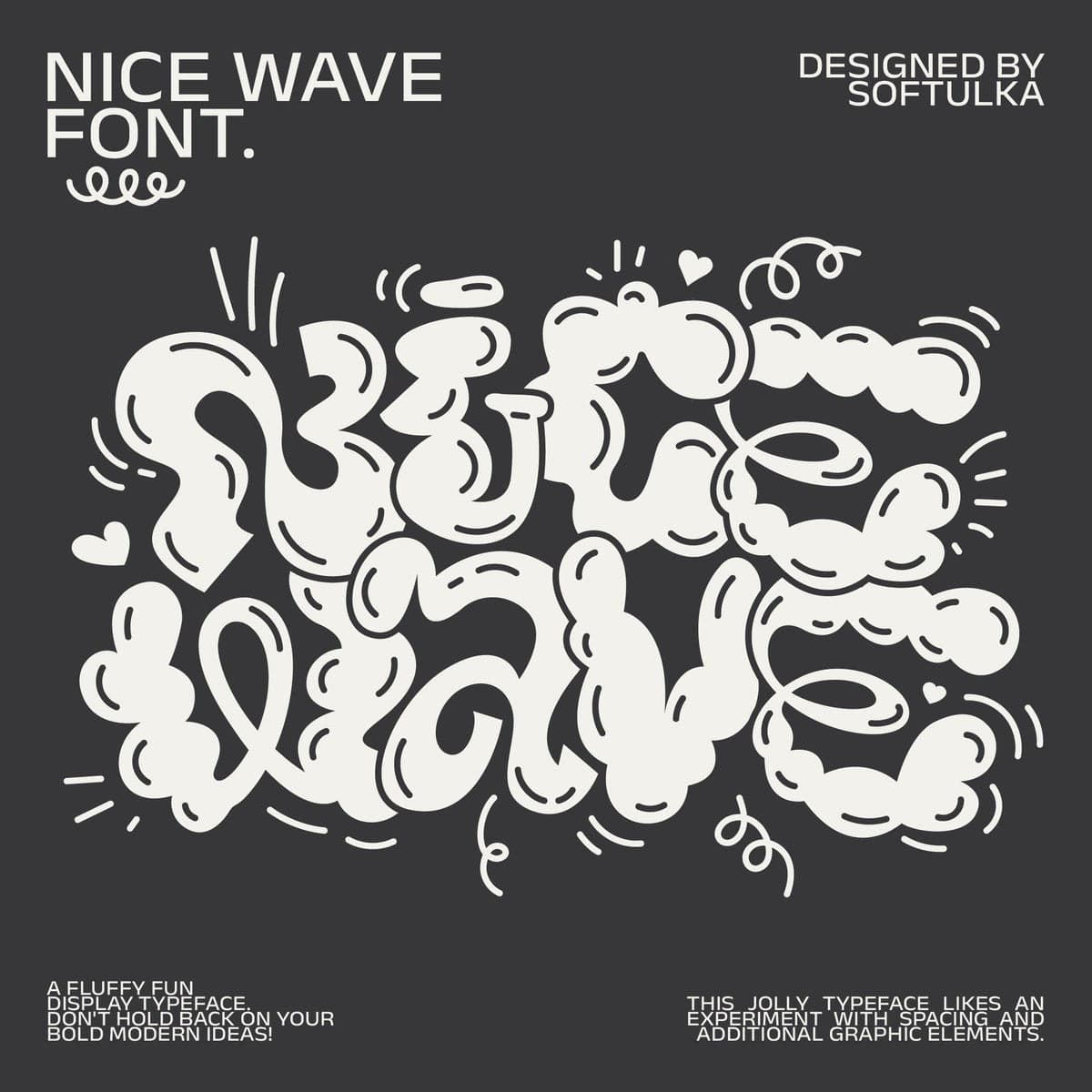
<p>Nice wave font - a fluffy fun display typeface with a wavy form. This decorative font works perfectly for bold titles, festival posters, as a graphic element for bright T-shirts or hoodies, or even backgrounds! This weird and ugly typeface likes an experiment with spacing and additional graphic elements. Please, don't hold back on your bold modern ideas!<br><strong>✦ You will receive: ✦</strong></p> <ul> <li>1 OTF file</li> <li>1 TTF file</li> <li>1 WOFF (WebFont) file</li> <li> </li> <li>PDF with preview. </li> </ul>